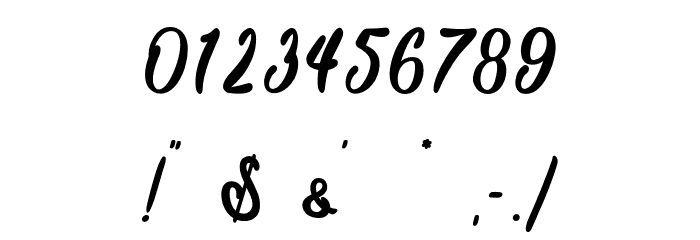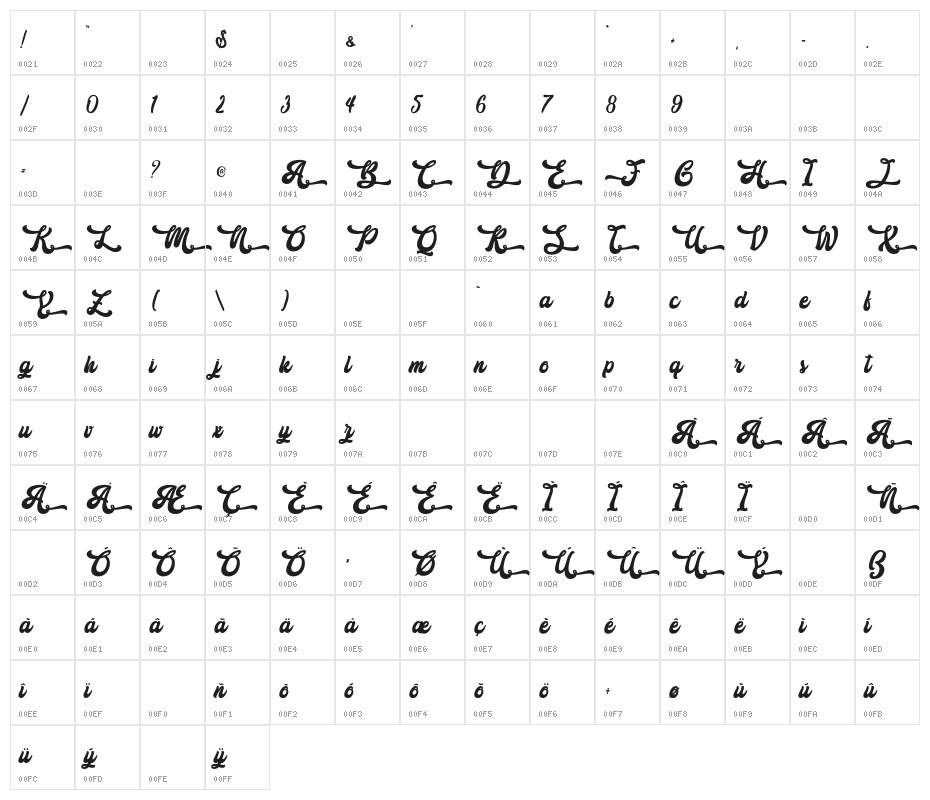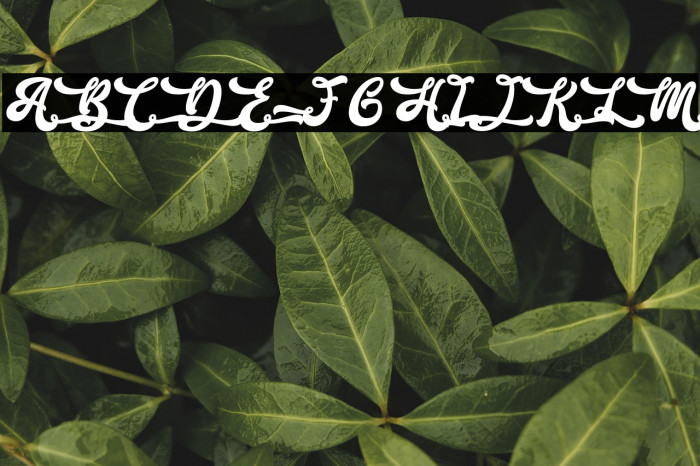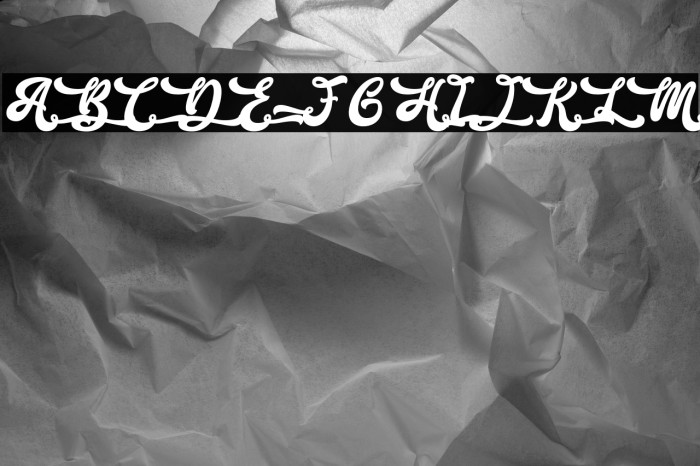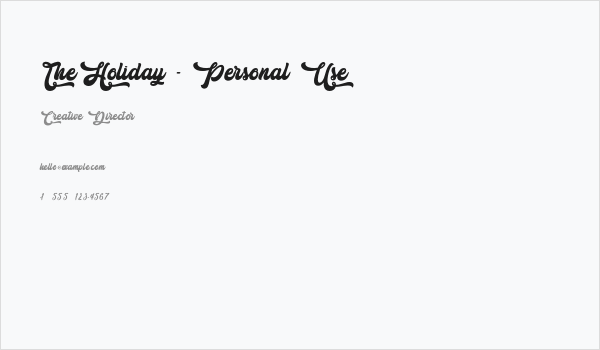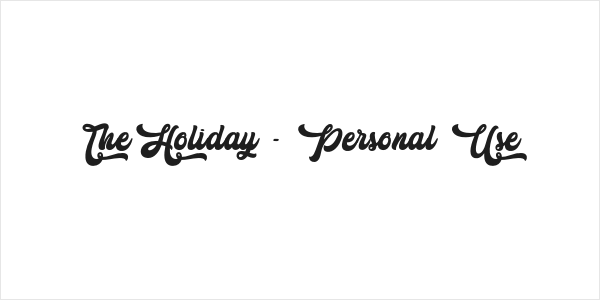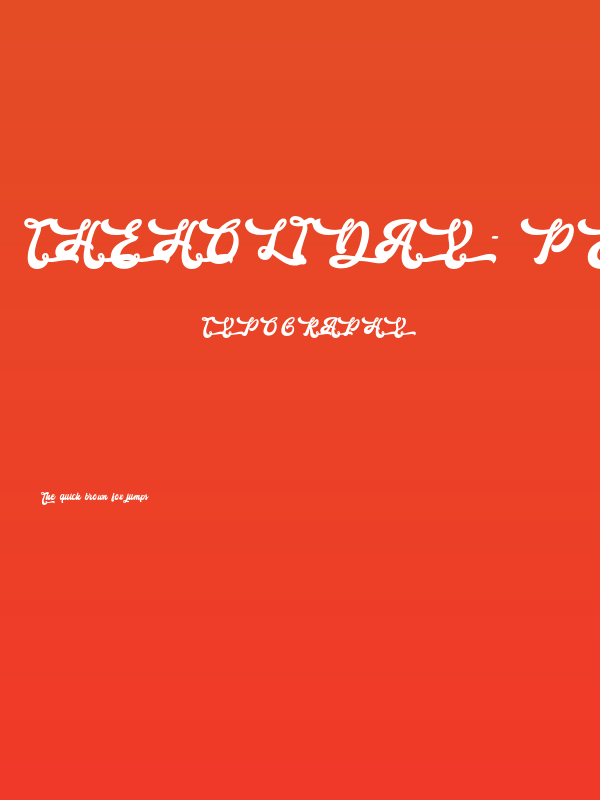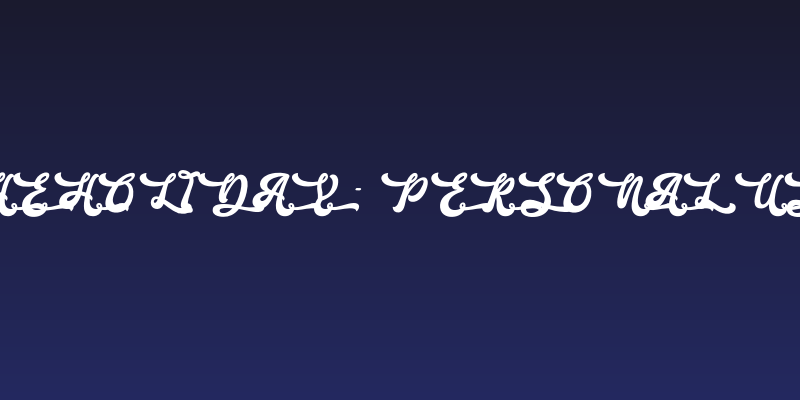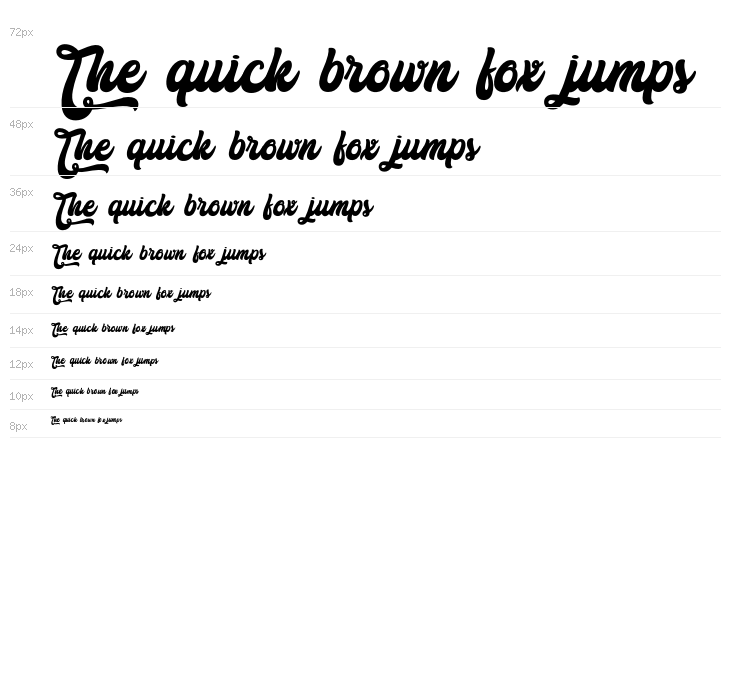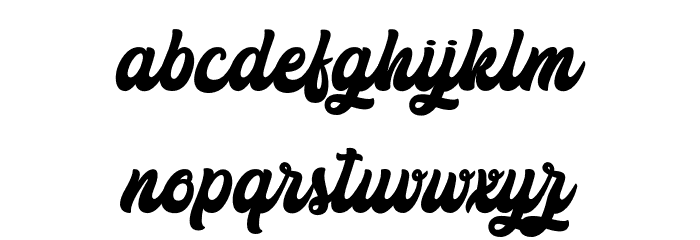
The Holiday - Personal Use Font
The Holiday - Personal Use Description
This font features a playful and decorative script style, characterized by its flowing, interconnected letters and whimsical flourishes. The uppercase letters are particularly ornate, with loops and curls that add a festive and lively touch. The lowercase letters maintain a smooth, cursive flow, making the font suitable for creative and informal applications. The numerals are consistent with the script style, offering a cohesive look across all characters. Special characters are included, enhancing the font's versatility for various design needs.